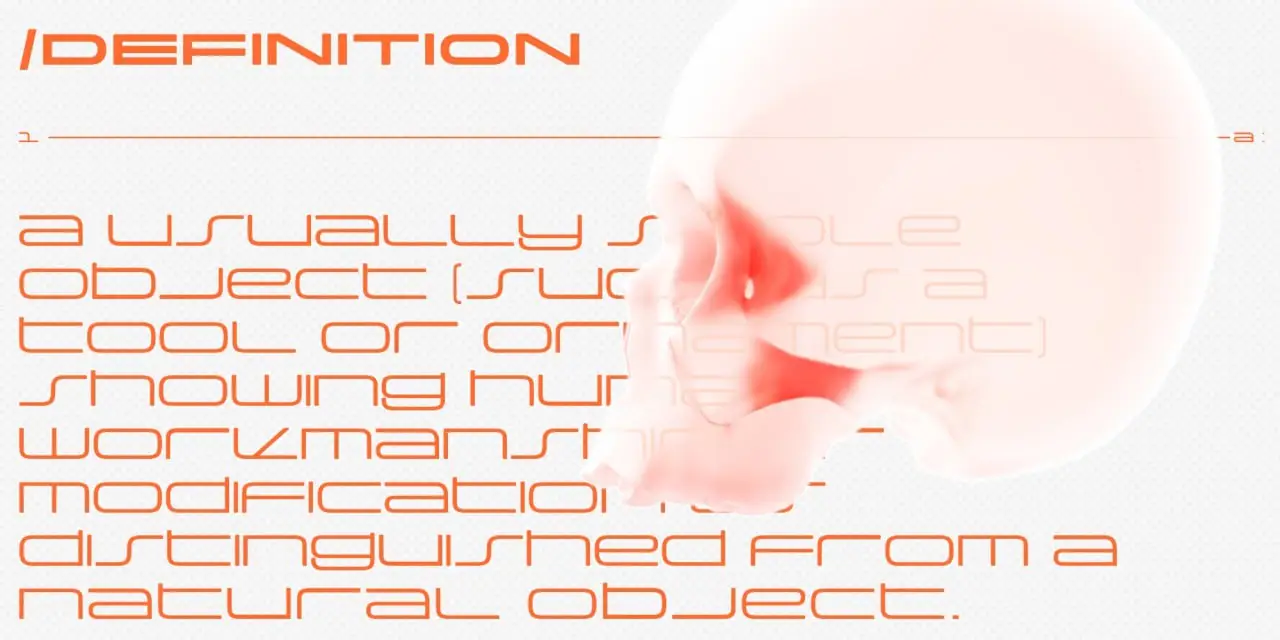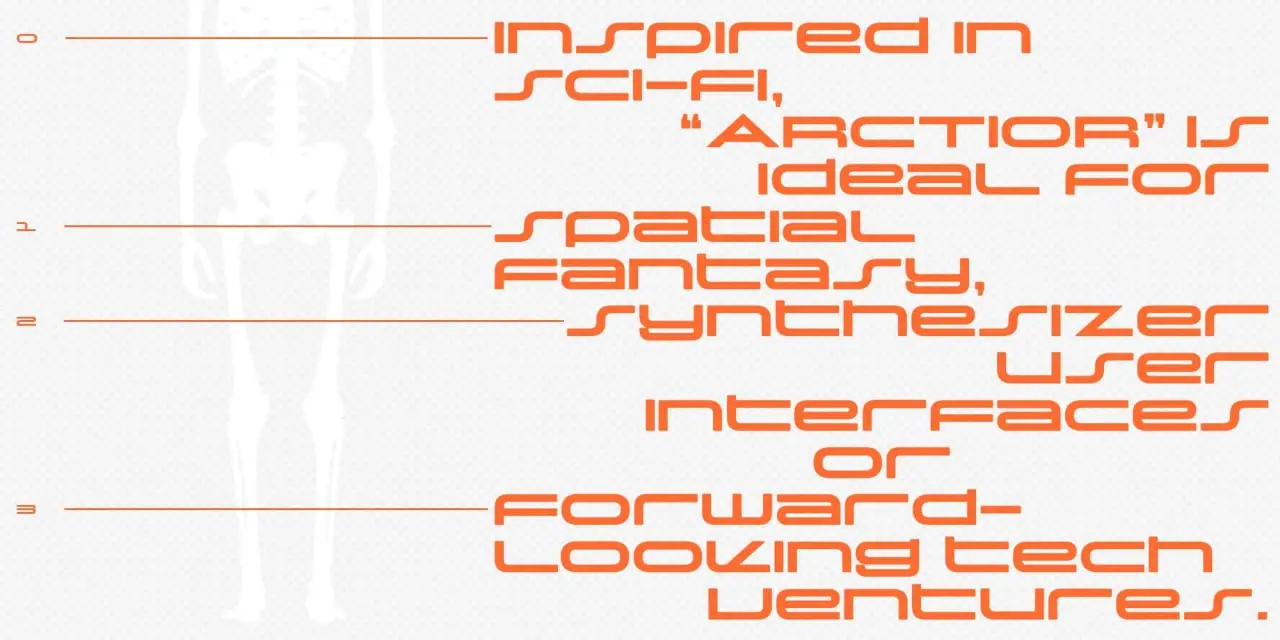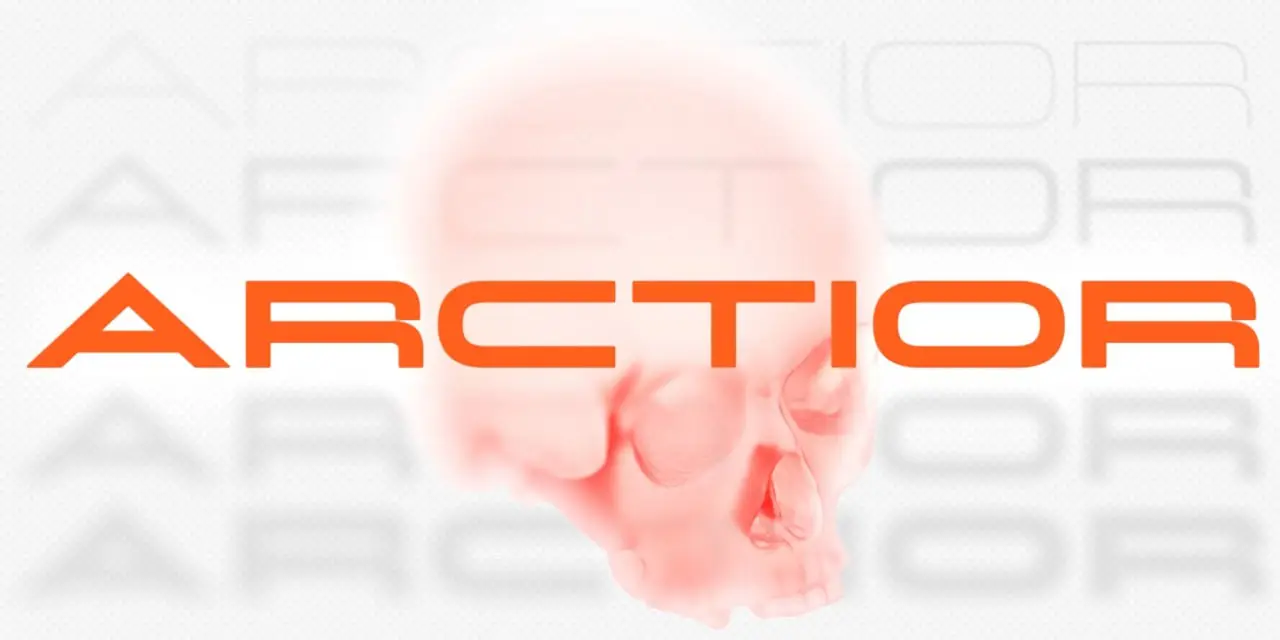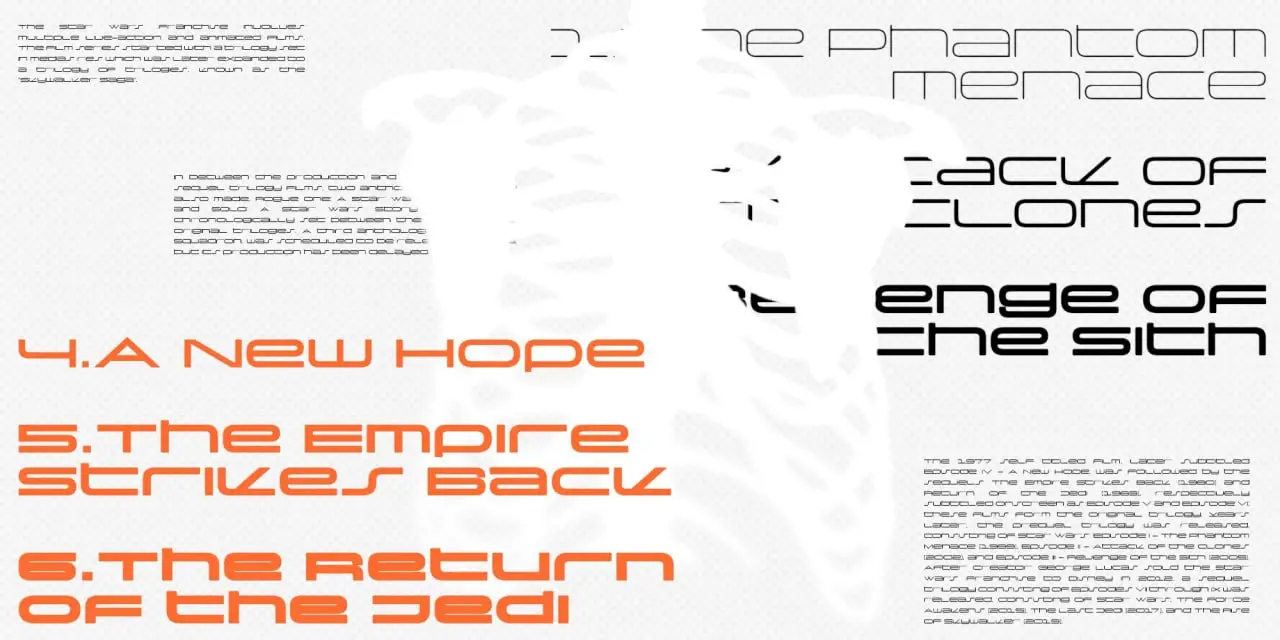
Arctior Font By Iñigo Uriarte
The Arctior Font by Iñigo Uriarte is a modern and versatile typeface designed to elevate your creative projects. With its clean lines and contemporary aesthetic, this font is perfect for a variety of applications, including branding, logos, web design, and print materials.
• Utilize different weights for emphasis in headings and body text.
• Pair Arctior with complementary fonts for a balanced design.
• Consider using it for both digital and print projects to maintain a cohesive brand identity.